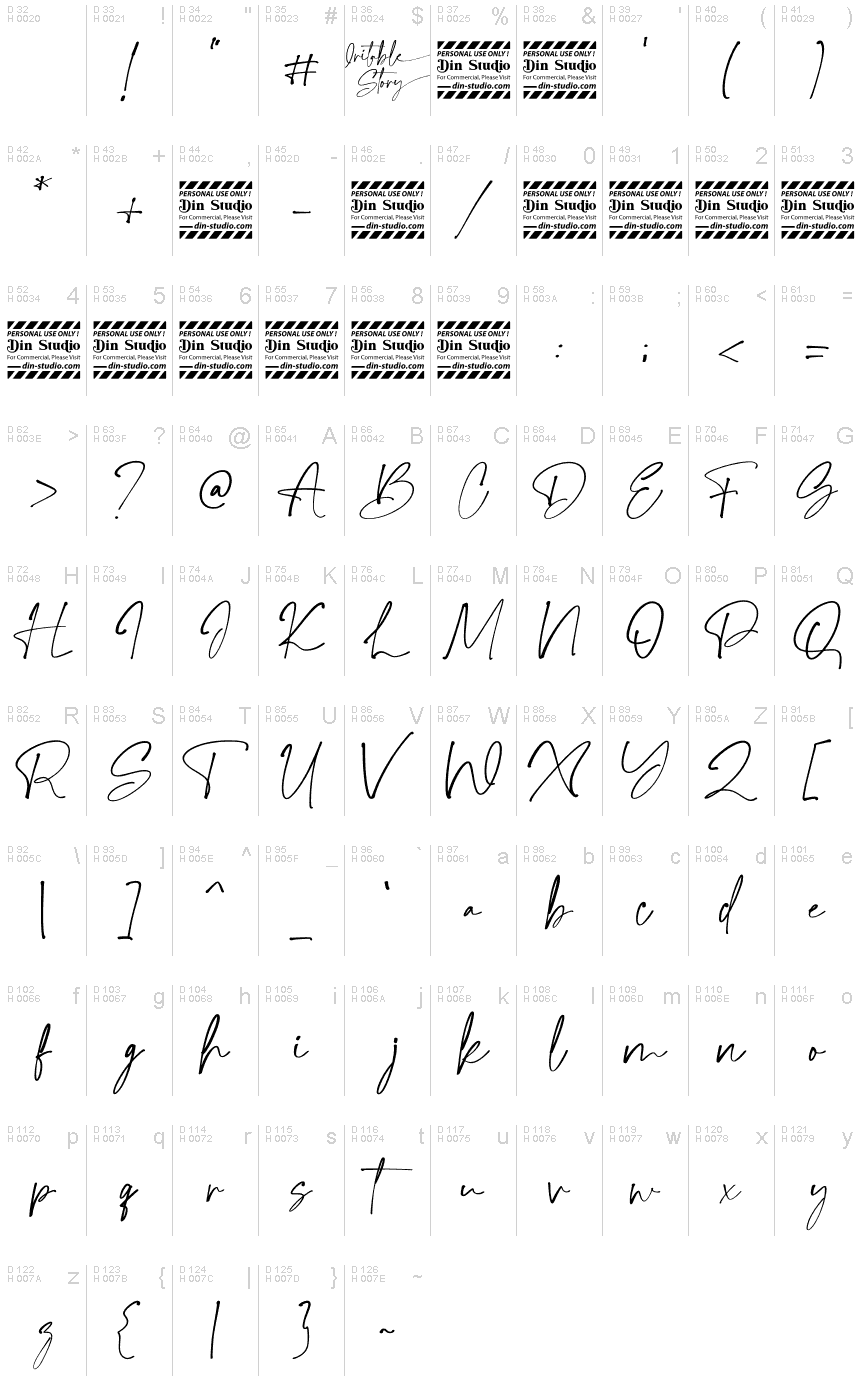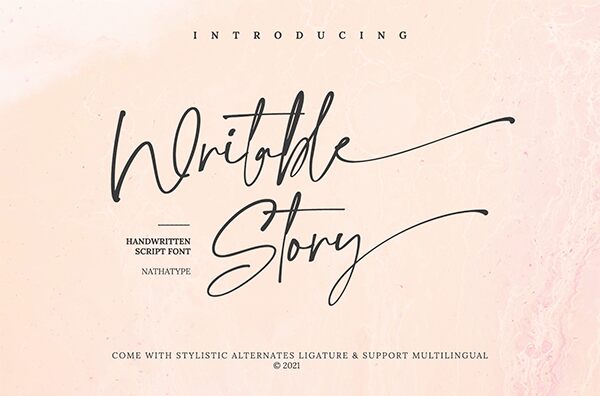
Writable Story Personal Use
Writable Story is a signature font designed by Donis Miftahudin. This font has a thin weight, making it perfect for projects such as wedding invitations, logos and book covers. It's also perfect for adding a personal touch to your handwritten notes!
Writable Story-A Handwritten Font
A modern and stylish handcrafted calligraphy font thatll make your audience swoon and enhance your branding. This font is more than just another handwritten font.